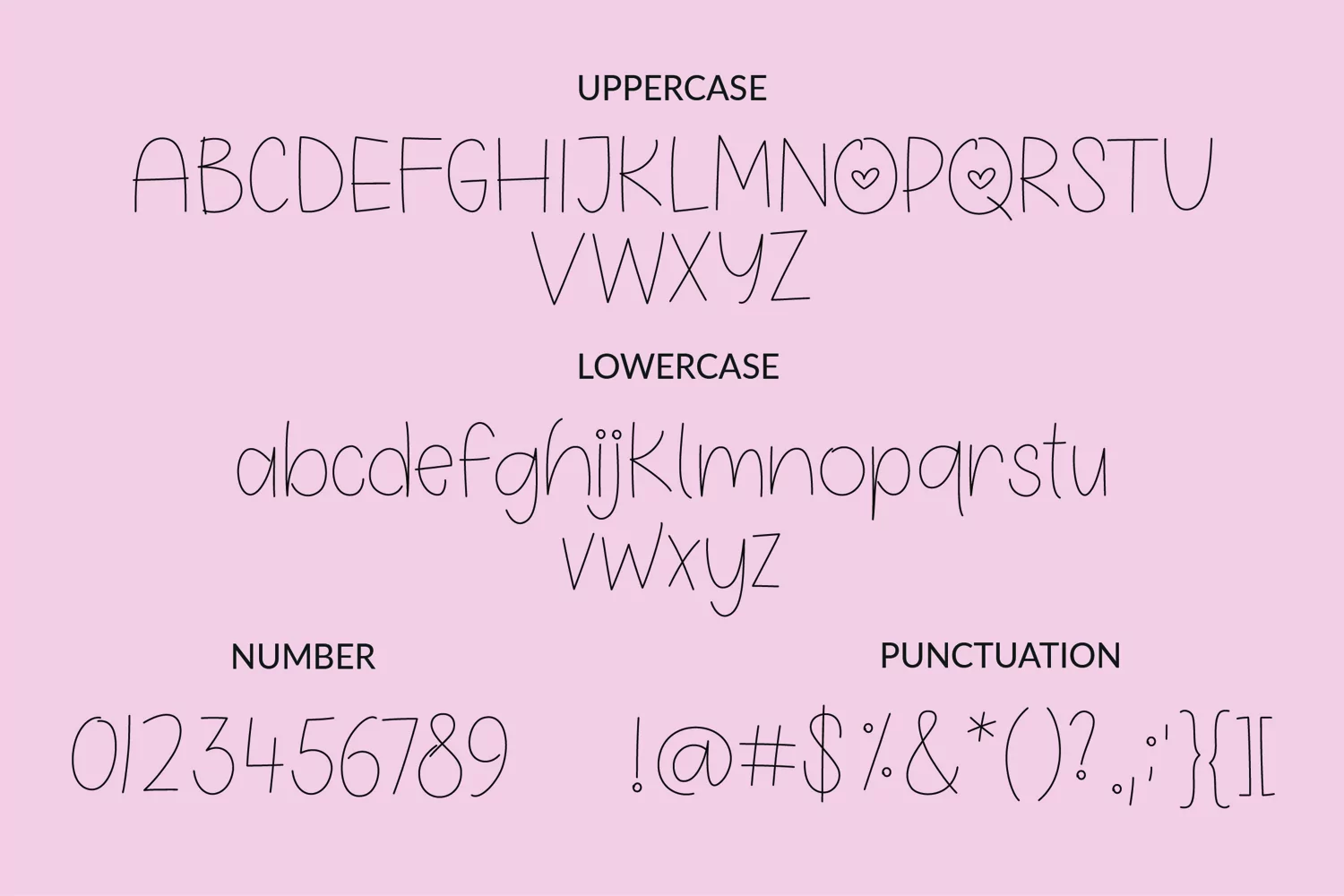
That Girl font duo - a single line, hairline sketch pen font
A playful font, Bold Love, is the perfect quirky font for all your craft projects - valentines or not!
This gorgeous font duo is perfect for engraving, sketch pen, foil quill, laser and more!
Use it for wedding invitations, social media posts, pretty logos and branding, beautiful quotes and more!
It includes Uppercase letters, Lowercase letters, numbers and punctuation.